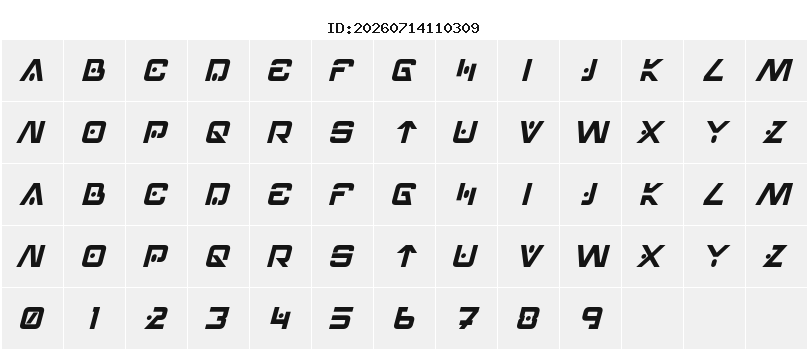
Hellpoint Preview
• Font Name: Hellpoint
• Full Font Name: Hellpoint Italic
• Designer: Neale Davidson
About Hellpoint.ttf
Hellpoint.ttf is a modern, elegant sans-serif font designed for ultimate readability and visual harmony. Perfect for branding, headlines, web design, and print materials.